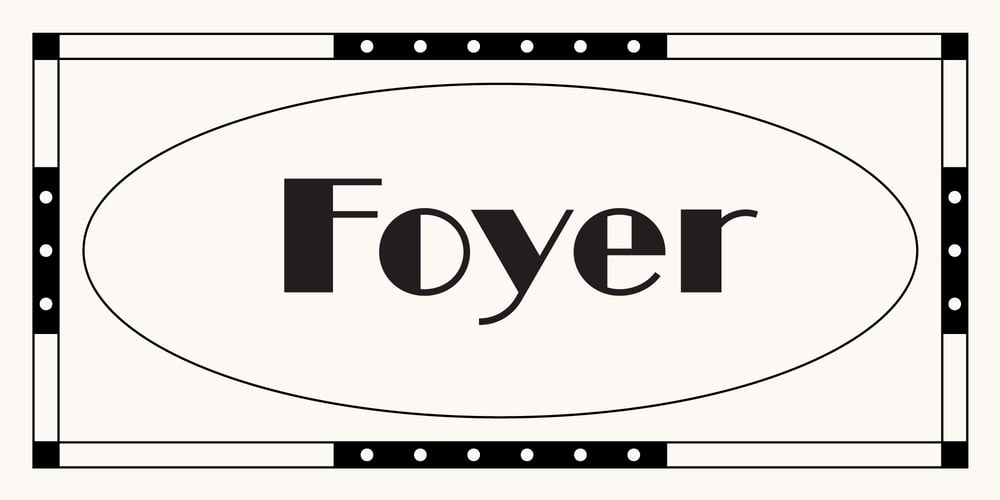
Foyer Font Family was designed by Friso Blankevoort and published by Friso Blankevoort. Foyer contains 1 styles and family package options. This bold, sharp and geometrically designed font exudes elegance and sophistication that will bring any design project to life. With its strong lines and shapes, it evokes memories of the glamorous era of art deco, making it perfect for theatre posters or hotel branding. A display font suitable for both print and digital media, adding an extra touch of class wherever it appears.